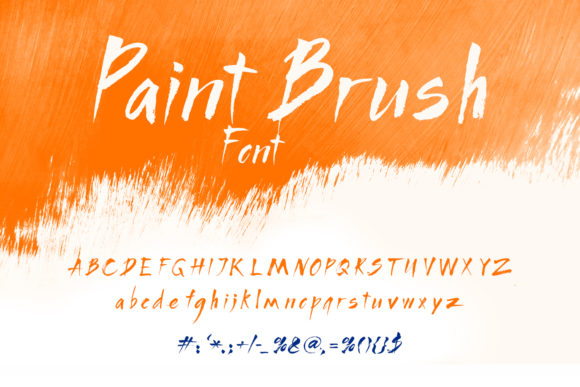
Unleash your inner artist and transform your creative visions into reality with Paint Brush Font, a captivating script font family that embodies the essence of artistic freedom. Inspired by the harmonious union of a brush pen and pencil, this font exudes an enchanting charm that's sure to leave a lasting impression.
With its endearing and authentic appearance, Paint Brush Font adds a touch of warmth and personality to any project. Its meticulously crafted characters mimic the natural flow of handwritten strokes, creating a sense of intimacy and connection. Dive into a world of endless possibilities and let your imagination run wild as you explore the boundless potential of this remarkable font.
Whether you're a seasoned designer, a passionate crafter, or simply seeking a unique way to express yourself, Paint Brush Font is your perfect companion. Its versatility knows no bounds, making it the ideal choice for a vast array of creative endeavors. From eye-catching logos and branding materials to personalized invitations and DIY projects, this font seamlessly adapts to your vision, adding a touch of magic to every creation.
Embrace the beauty of imperfection with Paint Brush Font. Its charming irregularities and playful imperfections evoke a sense of authenticity and craftsmanship that's sure to resonate with your audience. Let your words dance across the page, carrying your message with a touch of whimsy and delight.
Step into the world of Paint Brush Font and unlock a treasure trove of creative possibilities. Experience the joy of bringing your imagination to life, one stroke at a time. With its captivating charm and boundless versatility, this font is the key to unlocking your creative potential. Embrace the art of imperfection and let your creativity flow freely with Paint Brush Font.